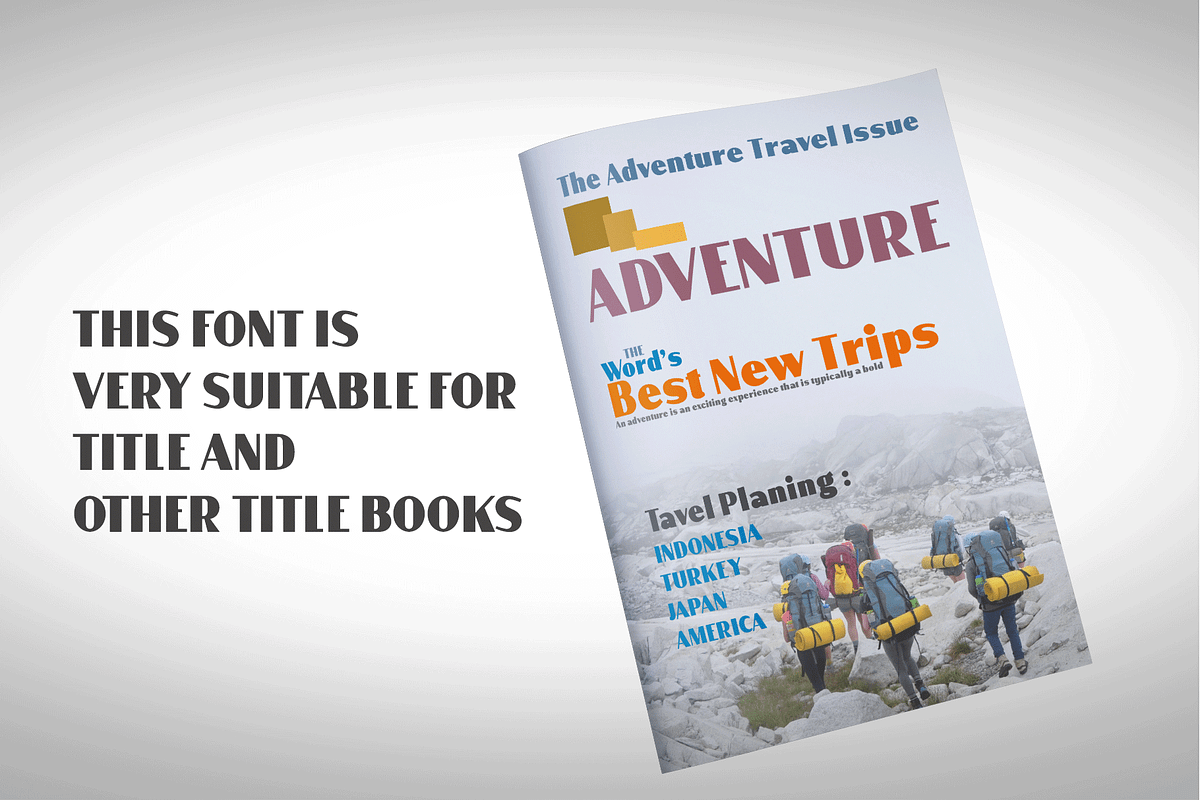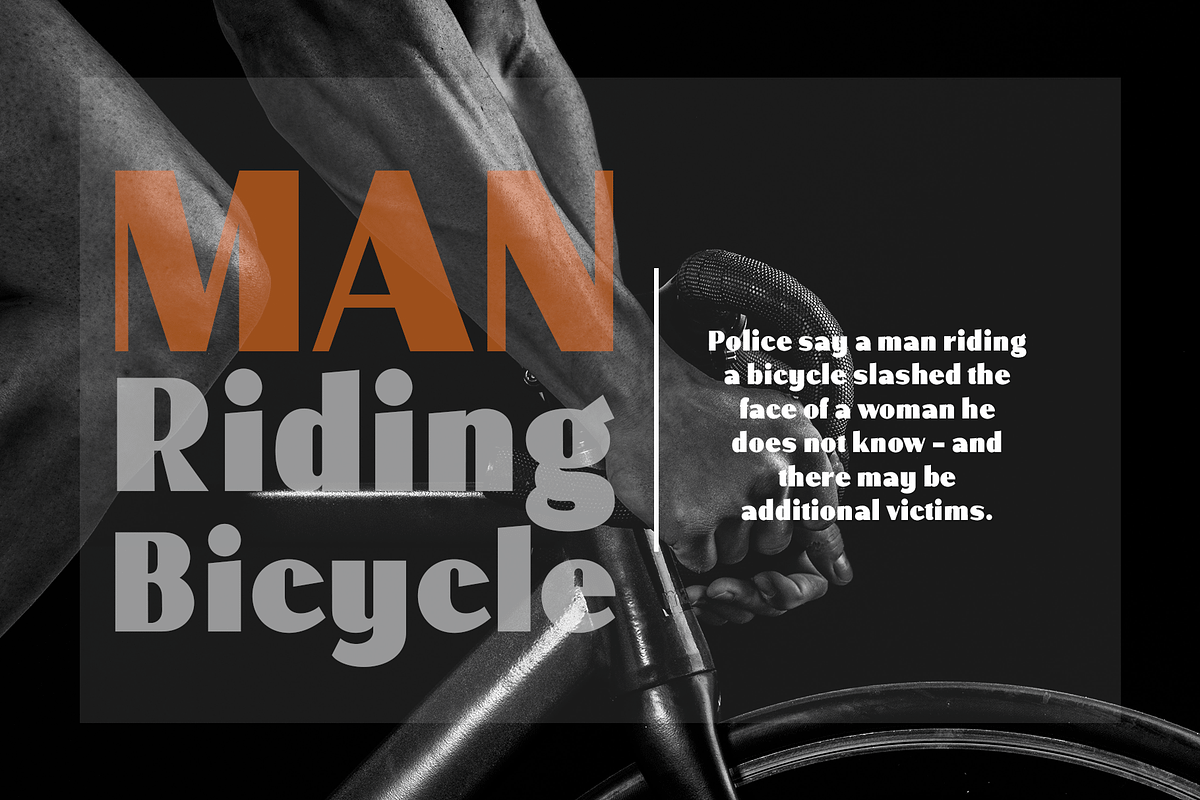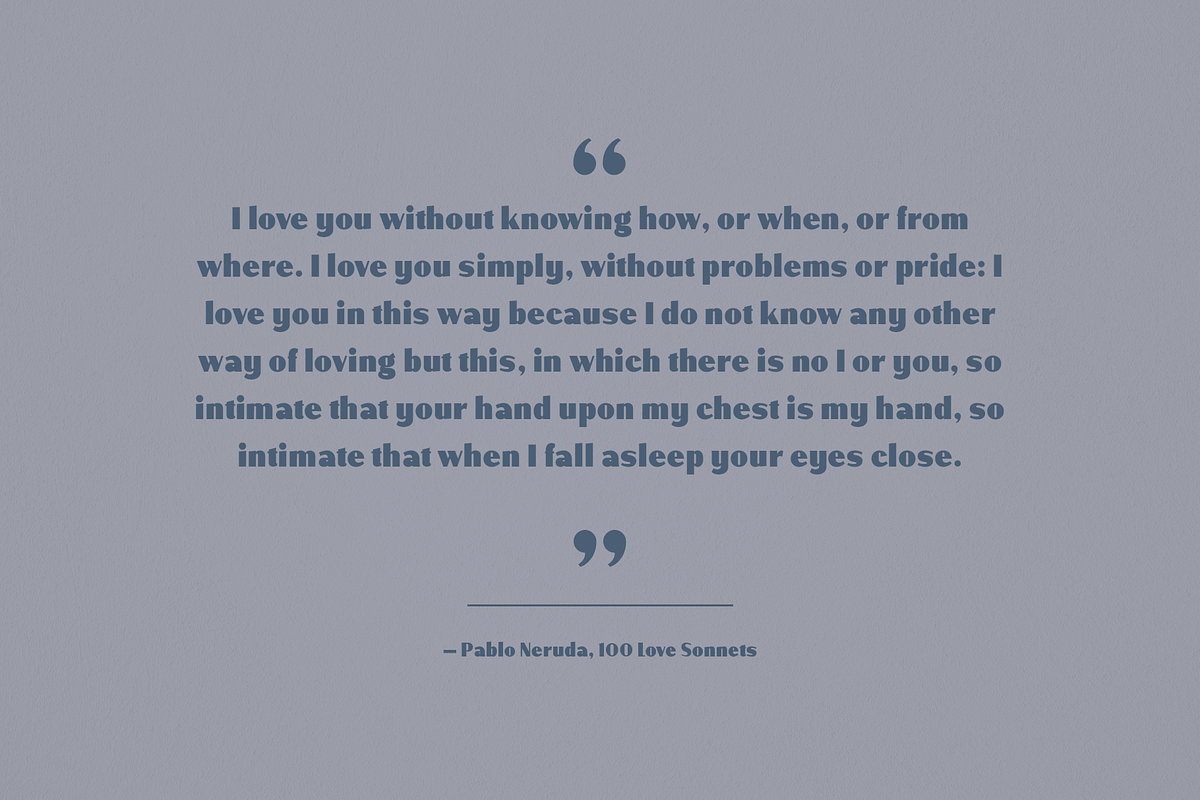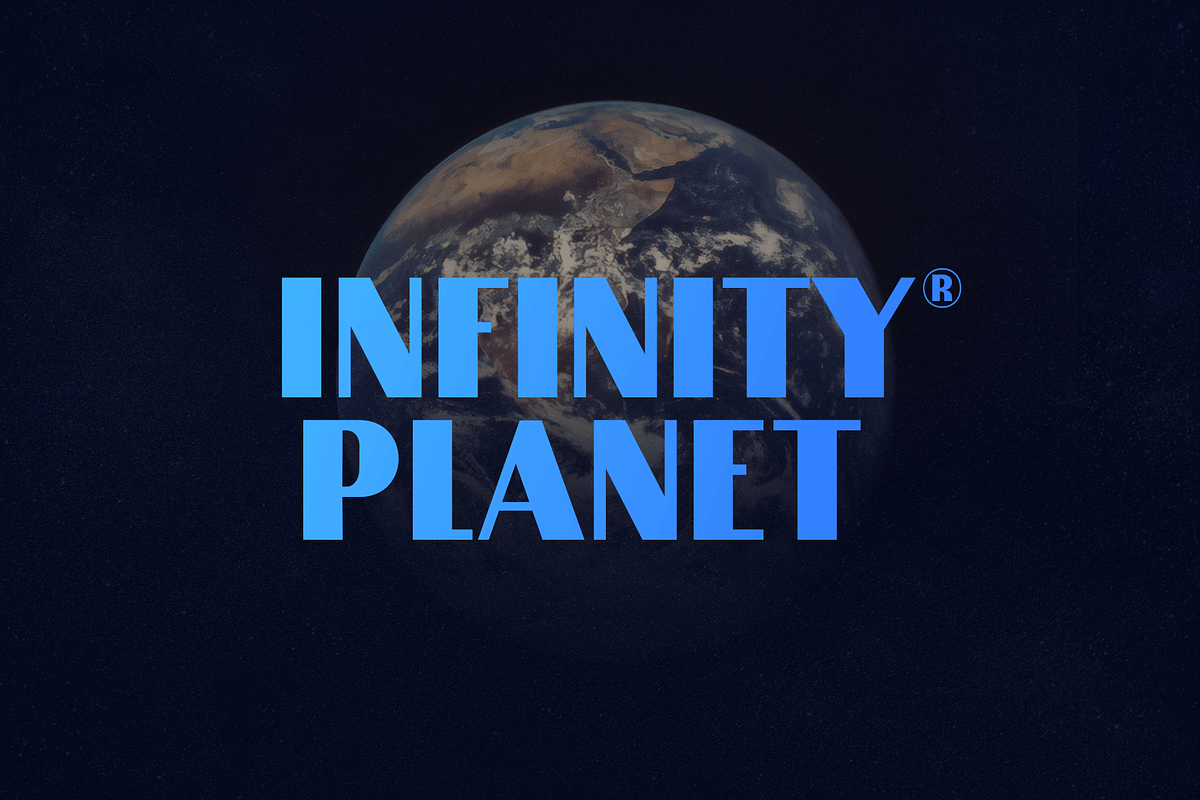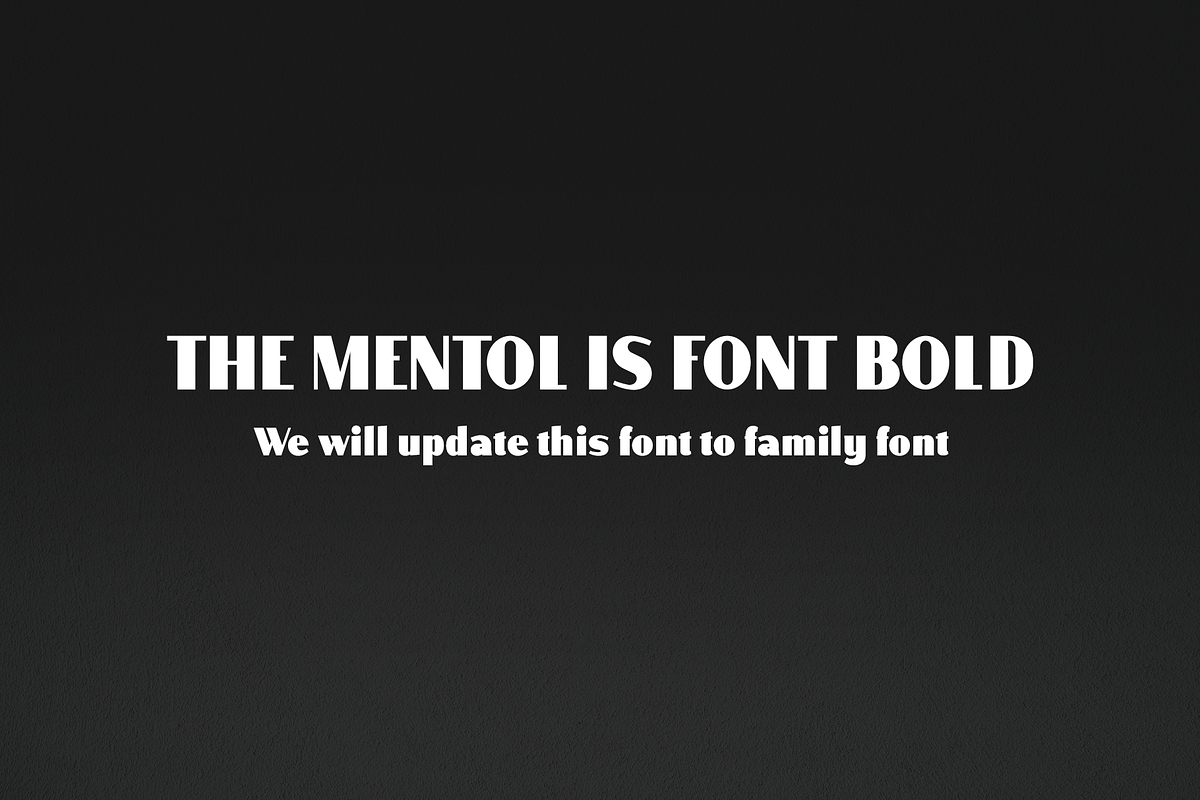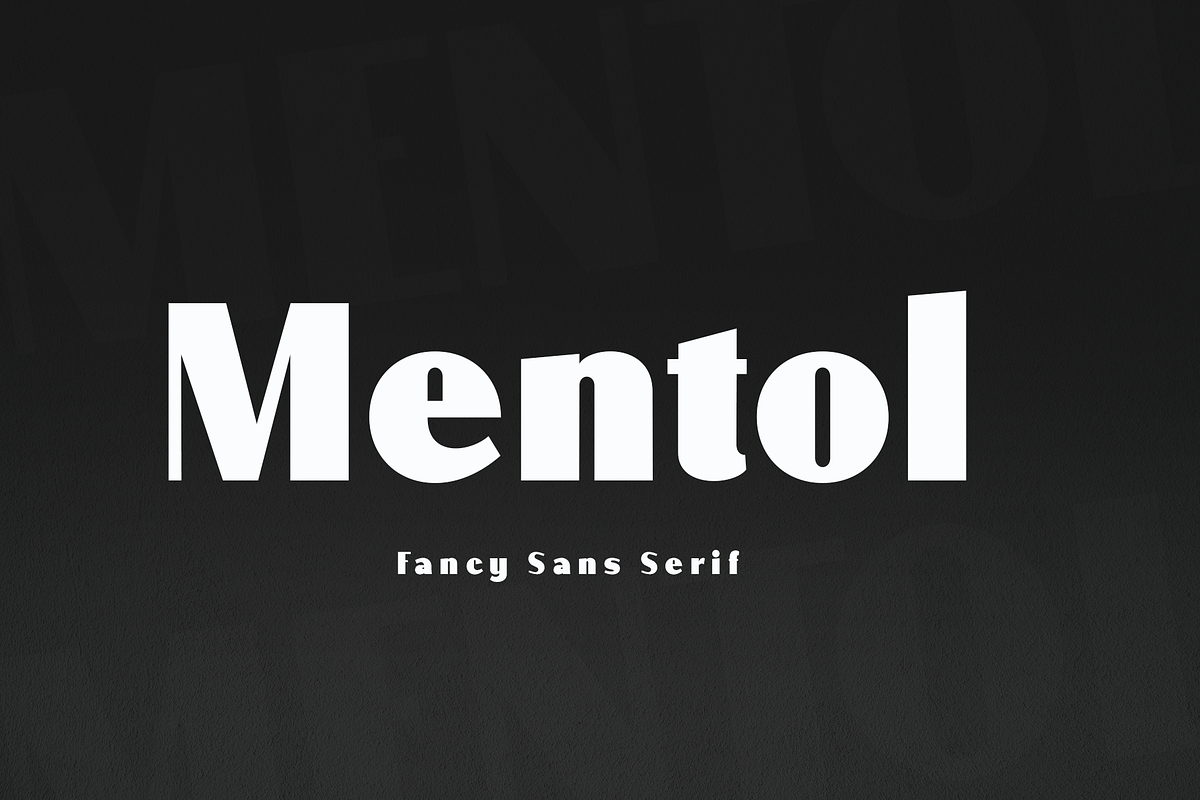
Mentol
Mentol is a thick and soft font, very suitable in various media. it has a modern characteristic that gives it an exclusive appeal. Mentol is still single, we will update this font to a family font, this will be done soon.
Mentol works great in any branding, logos, magazines, films. The different weights give you a full range of whole hosts of applications, while the outlined fonts give a real modern feel to any project.